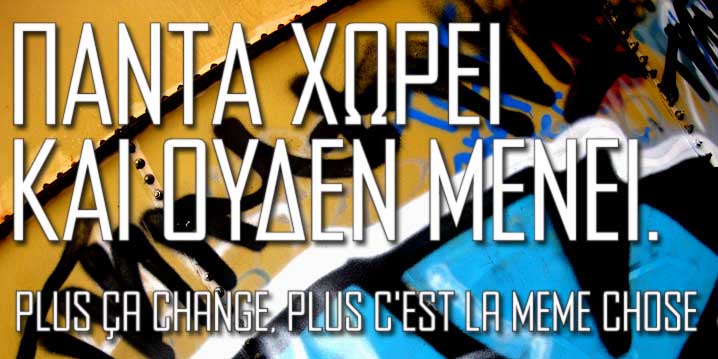
Agency Gothic CT Light
A very light, condensed member of the Agency Gothic family. It includes uppercase letters only with a few alternates, numerals, and punctuation. All Agency Gothic CT fonts support all European languages that use the Latin as well as most languages that use the Cyrillic alphabet. Click on the glyph chart at right to view/print all glyphs.
Agency Gothic CT is available in 6 styles: Light, Medium, Bold, Condensed, Inline and Open.